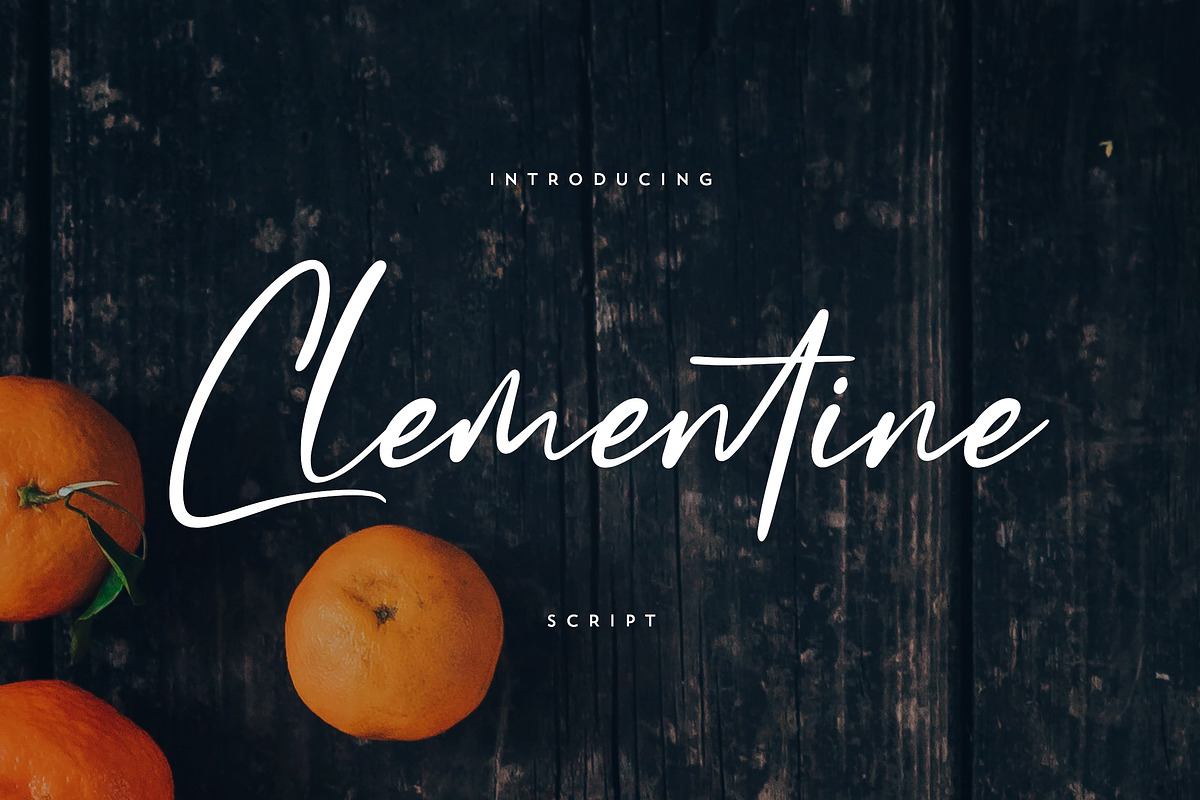
Clementine Script Font Free Download is a charming and elegant handwritten typeface that brings a soft, feminine touch to your designs. With flowing curves, delicate swashes, and a natural writing style, this font is perfect for wedding invitations, branding, social media graphics, product packaging, and romantic quote designs.
Clementine Script Font Free Download combines sophistication with warmth, giving your projects a personal, handcrafted feel. It includes stylish alternates and ligatures, allowing you to create beautifully customized typography that stands out across both print and digital platforms.
Whether you're designing for a boutique brand or creating heartfelt content, Clementine is the perfect script to add elegance and personality. You’re welcome to test it out in personal mockups or concept projects, but a commercial license is required for professional use. Let your designs bloom with the graceful beauty of Clementine.